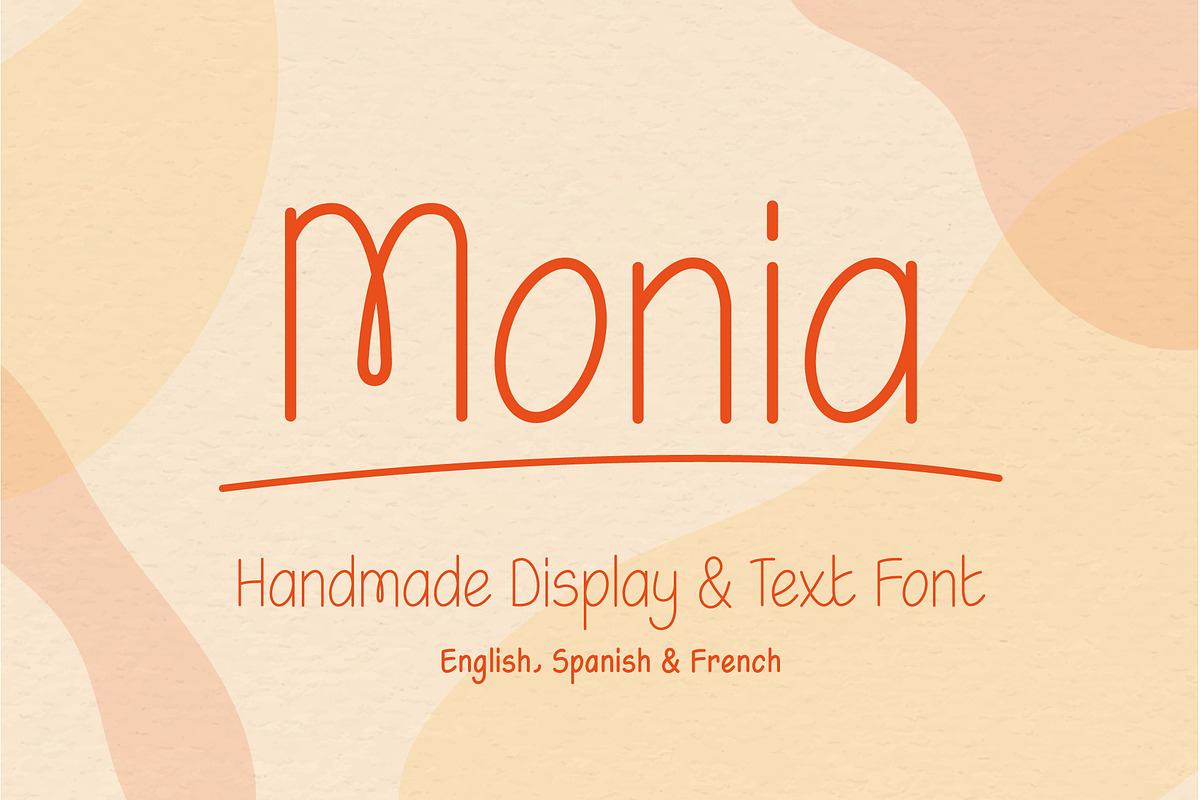
Monia - Handmade Display & Text Font Free Download
Monia Font Free Download
Monia Font Free Download is a beautifully handmade typeface designed for both display and text use. With its organic curves and hand-crafted feel, Monia brings warmth, charm, and personality to everything from branding and packaging to editorial layouts, social media graphics, and lifestyle products.
This versatile font blends the artistry of hand-drawn lettering with the functionality of a clean, readable structure. It includes uppercase and lowercase characters, numerals, and punctuation—making it a great choice for both standout headlines and longer passages of text.
Whether you're creating cozy product labels, a heartfelt invitation, or a stylish logo, Monia Font Free Download adds an authentic handmade touch to your typography. Use it freely for personal and preview projects, and don’t forget to purchase the appropriate license for commercial use. Add handcrafted elegance to your next design with this unique display and text font.